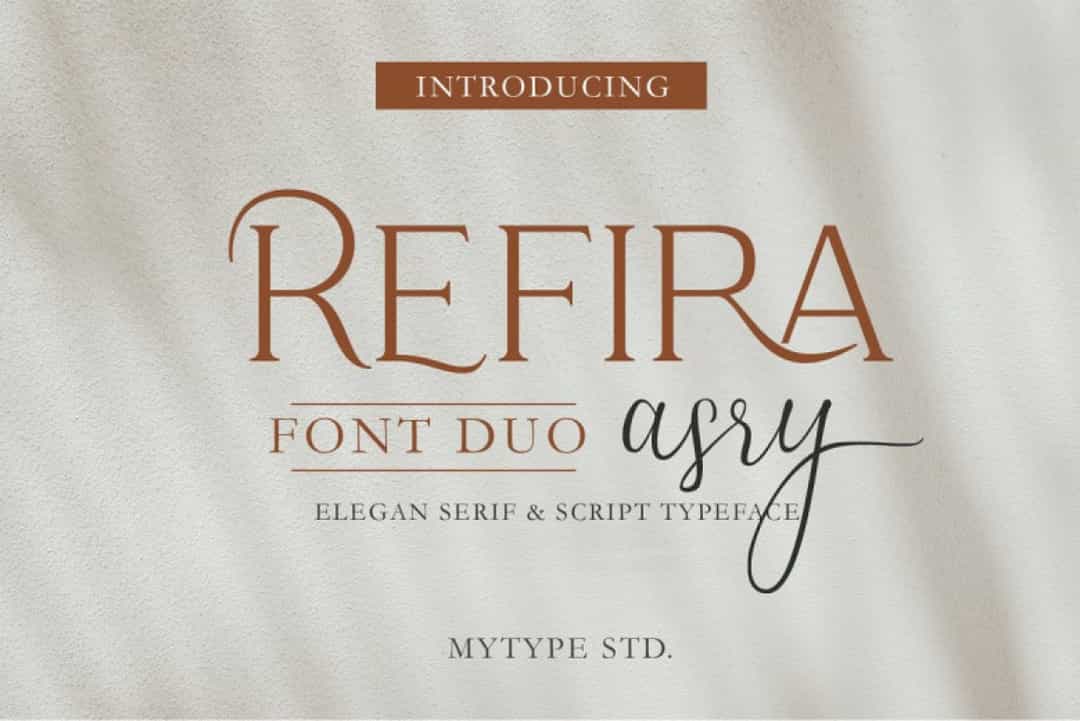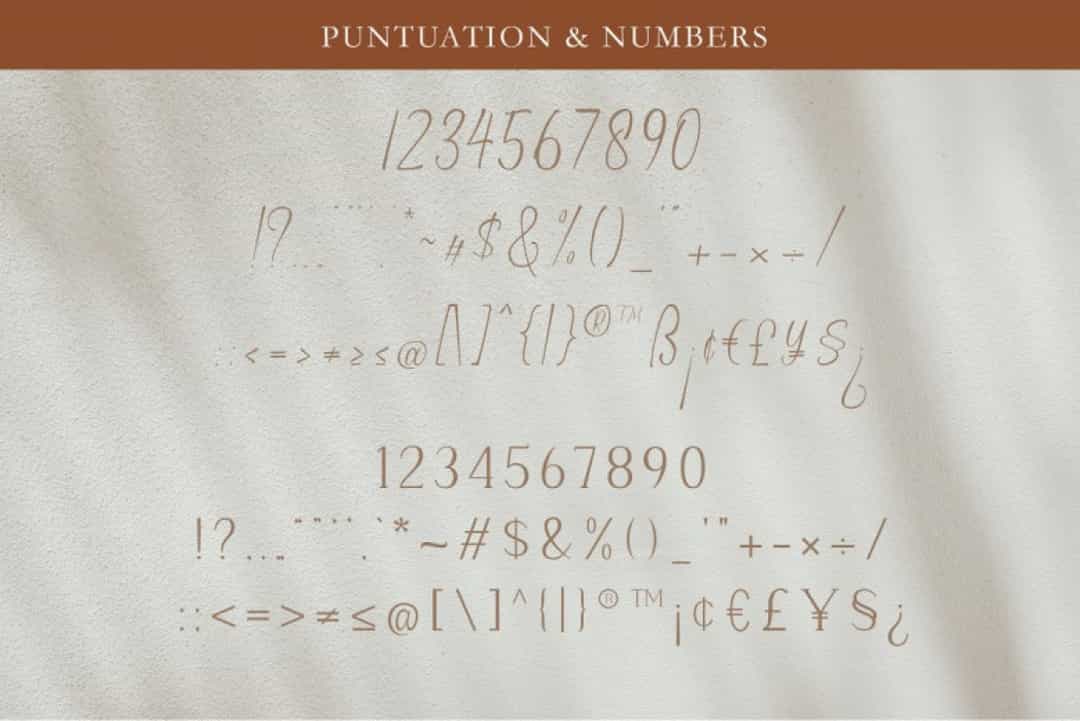
Refira Asry Font Duo is a striking pair of high-end script and serif fonts designed to complement and contrast one another, creating an eye-catching combination in beautiful contrast and modern style. Refira Asry Serif offers stylish modern all-caps serif typography featuring uppercase characters, punctuation and numerals for optimal readability.